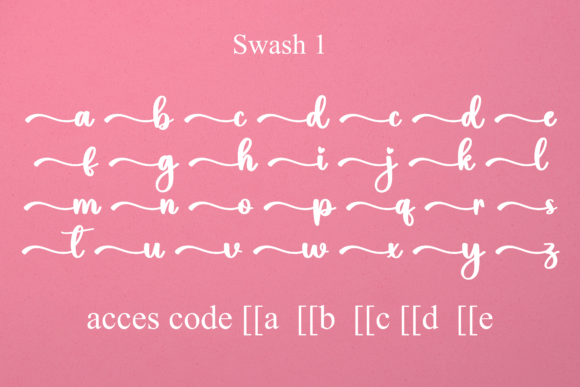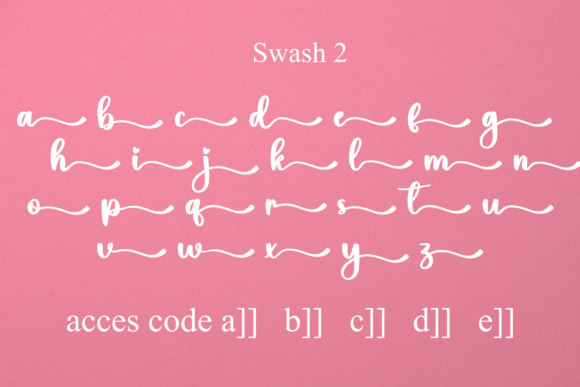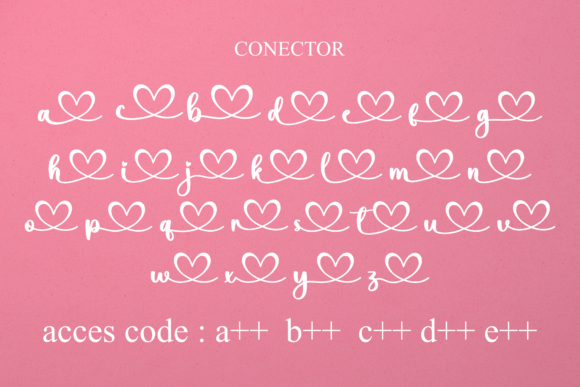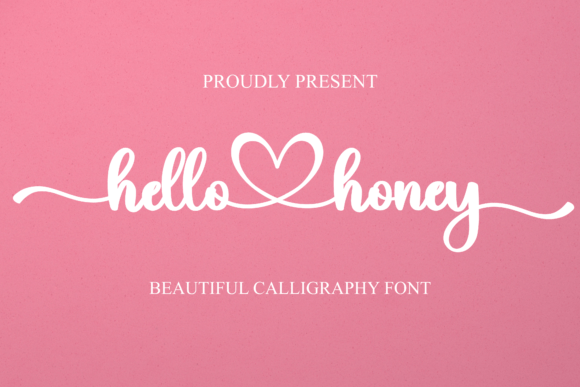
Introduction to Hello Honey Font
Hello Honey’s latest style letters are perfect for wall displays, wedding invitations, social media post logos, advertisements, product packaging, product designs, labels, photography, watermarks, invitations, stationery, and any project that requires handwritten taste.
Key Features of Hello Honey Font
Why Choose Hello Honey Font?
Hello Honey Font offers exceptional quality and versatility, making it a valuable addition to your design toolkit. Whether you’re creating for personal projects or commercial use, Hello Honey Font delivers professional results.